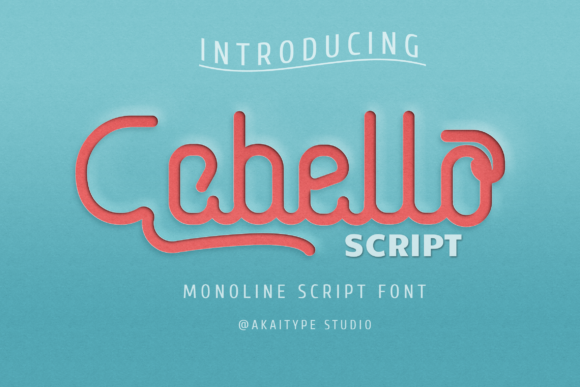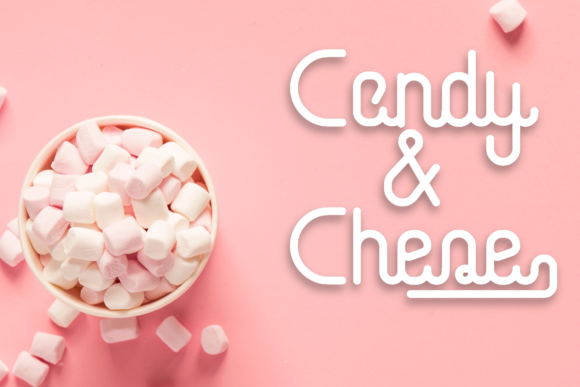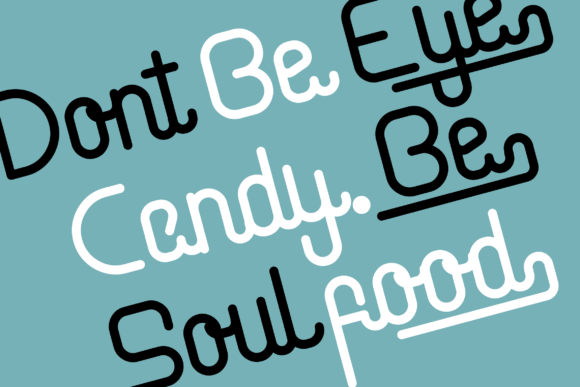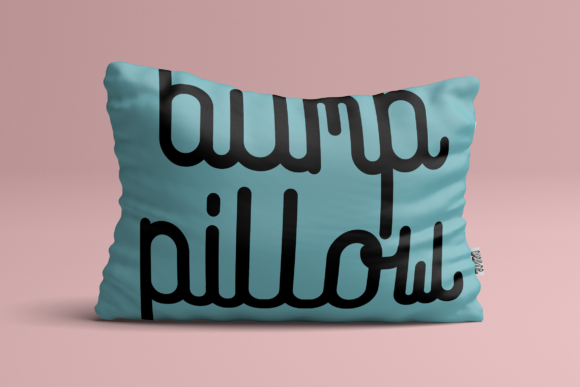
Cabello Script Font
About Cabello Script Font
Cabello Script is a vintage styled and delicate handwritten font. It has beautiful and well balanced characters and as a result, it matches a wide pool of designs.